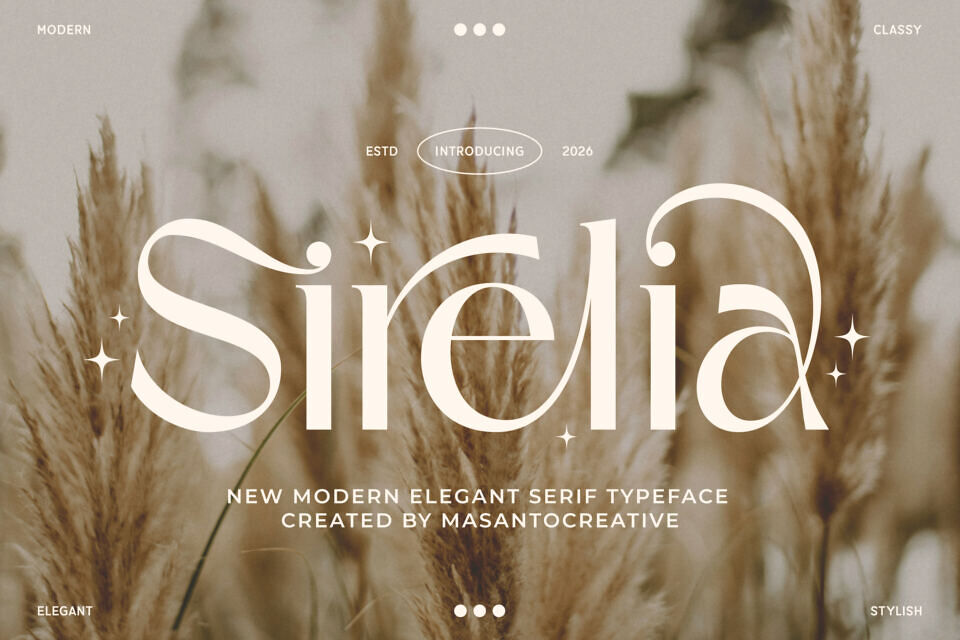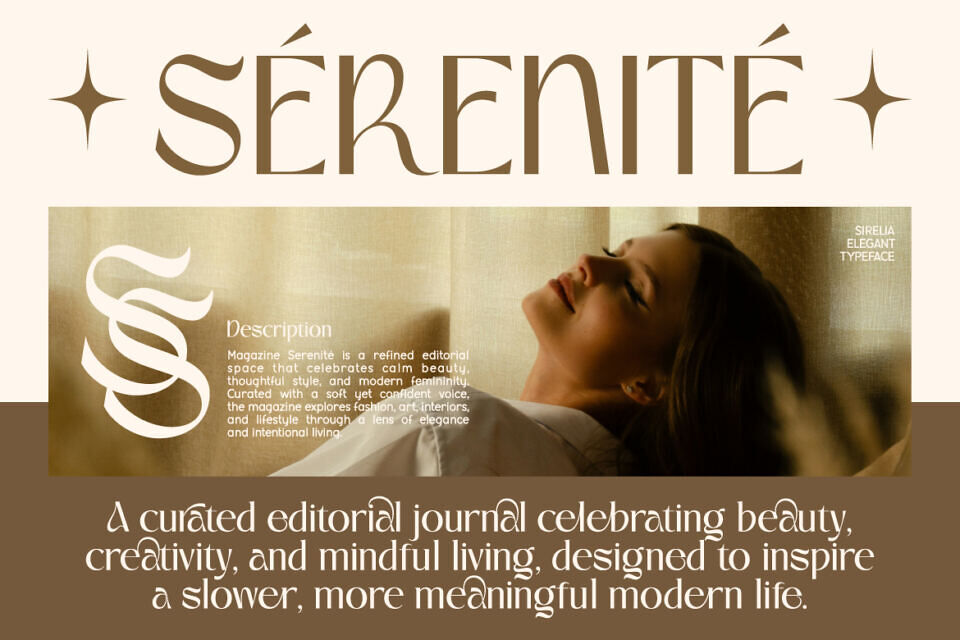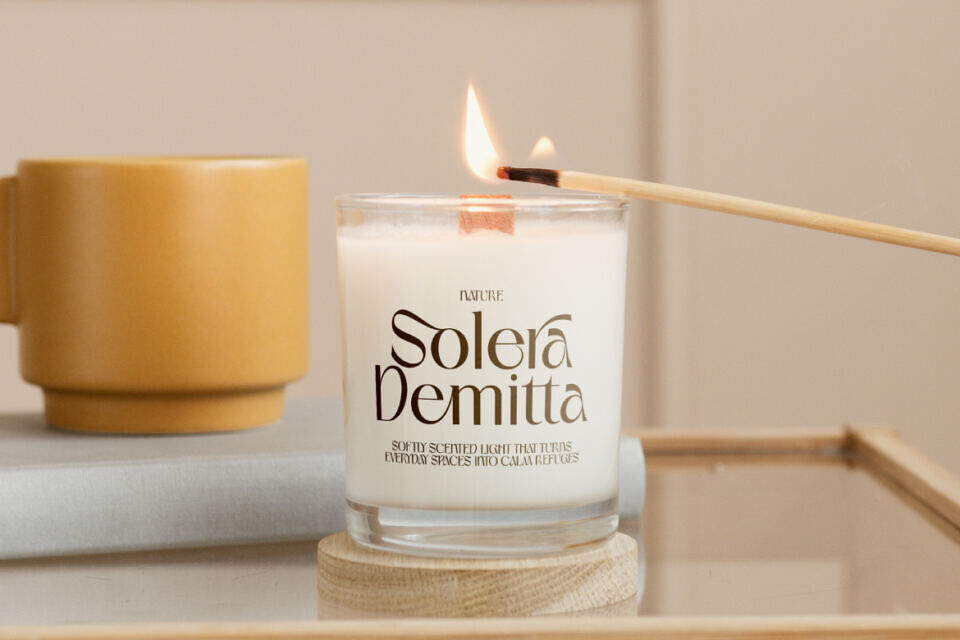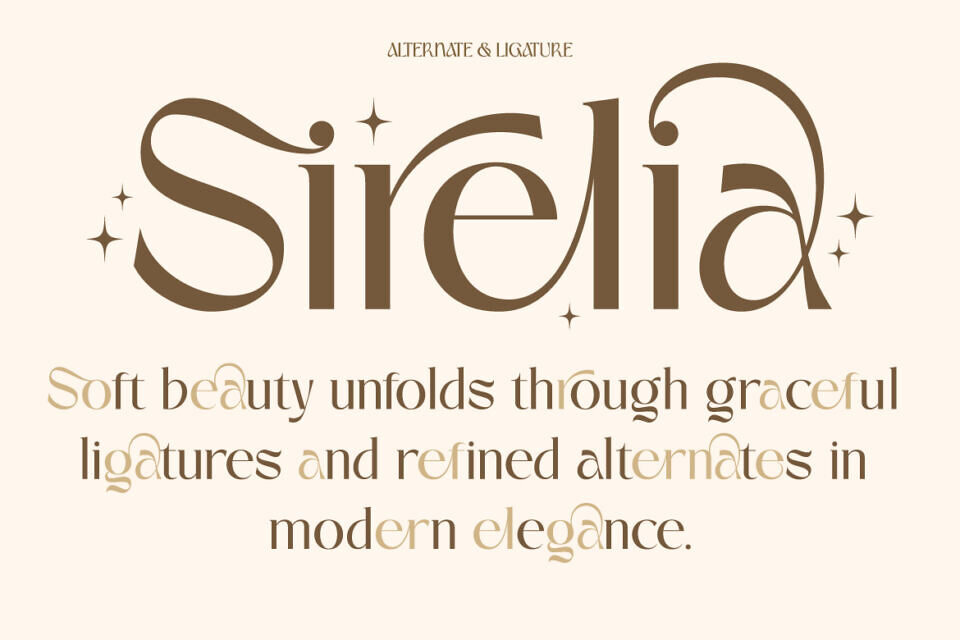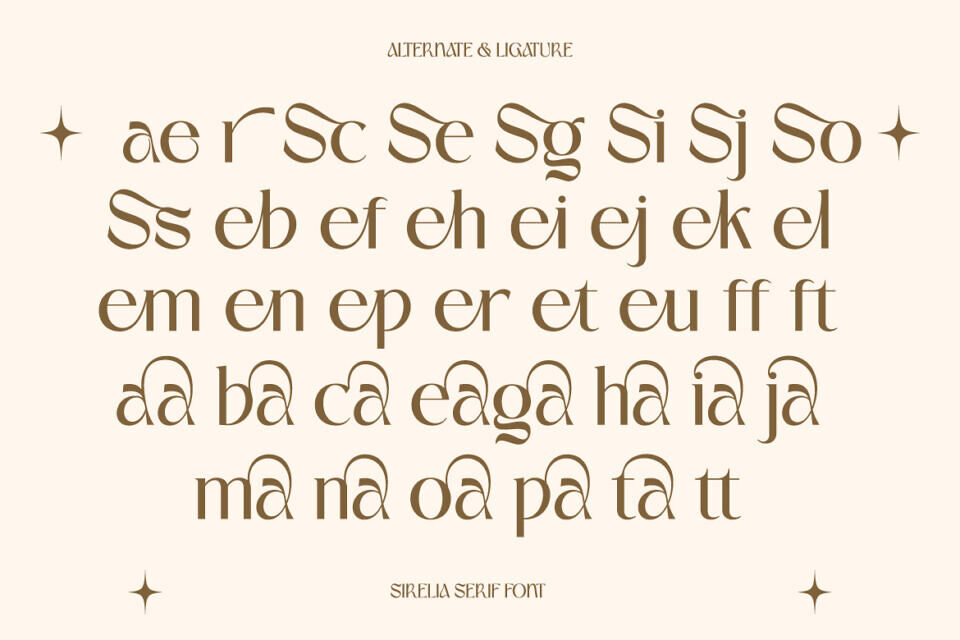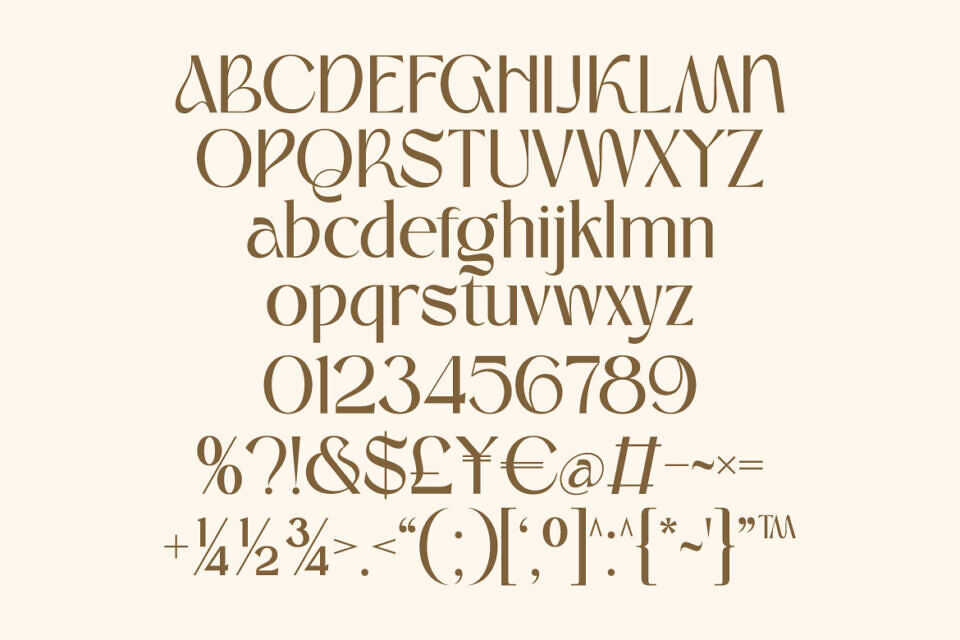
Sirelia Font
Sirelia is a modern elegant serif typeface designed to express refinement, softness, and timeless beauty. Crafted with graceful curves, balanced contrast, and subtle organic details, Sirelia blends classic serif elegance with a contemporary editorial aesthetic, making it perfect for sophisticated visual storytelling.
Designed to feel warm yet luxurious, Sirelia works beautifully across fashion editorials, lifestyle magazines, interior branding, beauty products, and premium packaging. Its distinctive alternates and ligatures add a stylish, artistic touch, allowing designers to create expressive and memorable typographic compositions without losing readability.